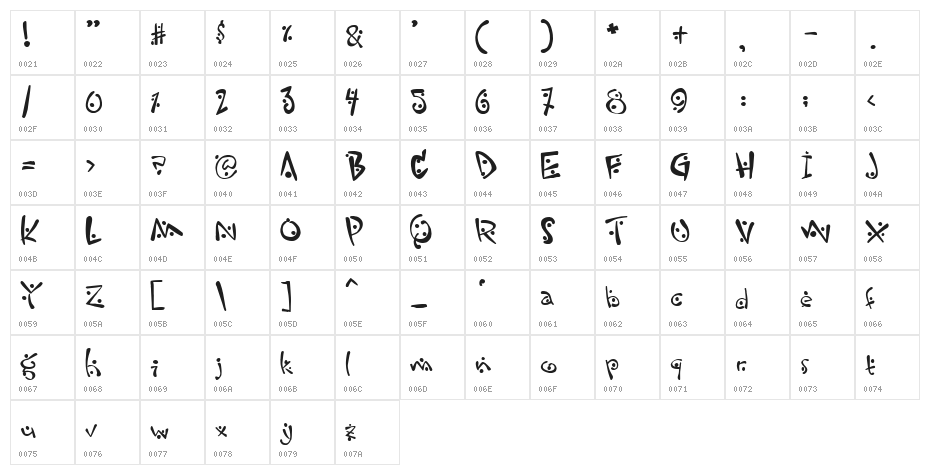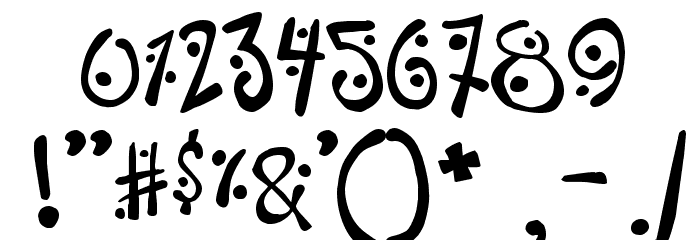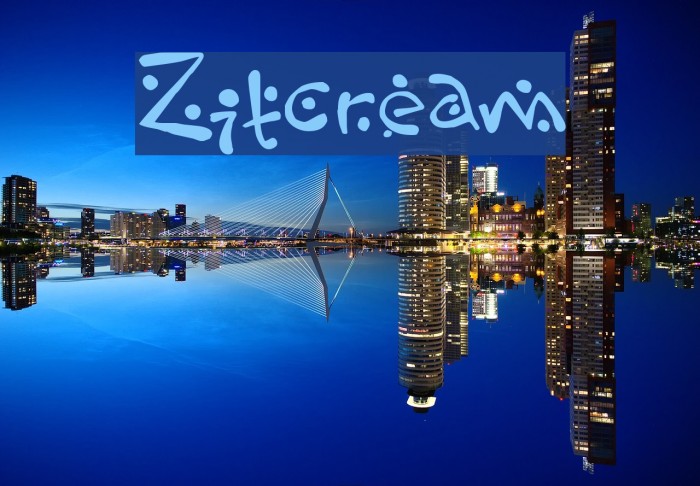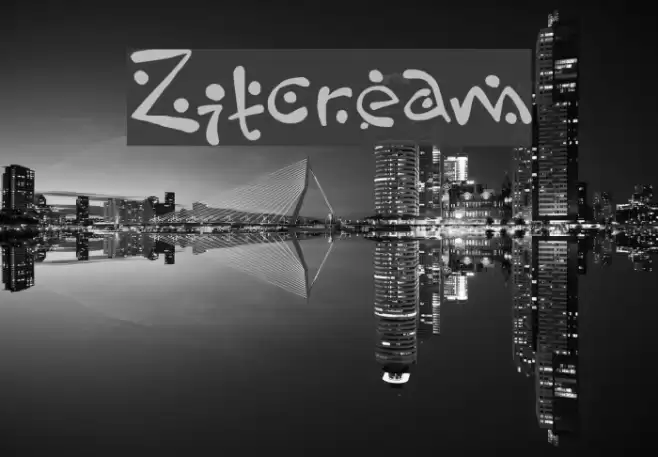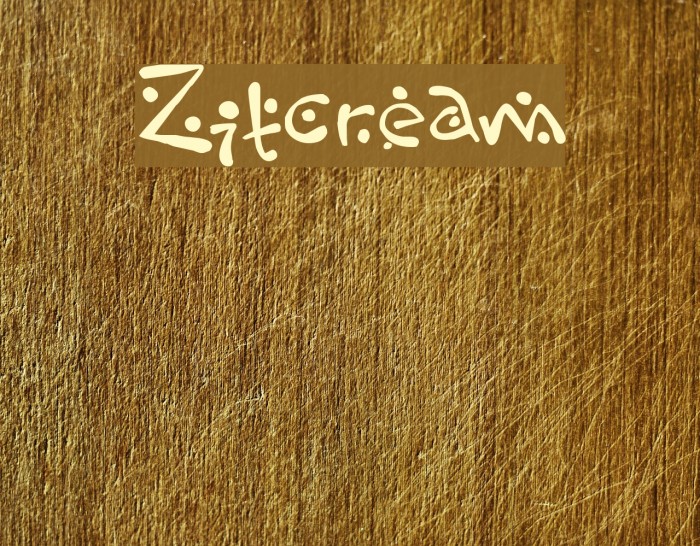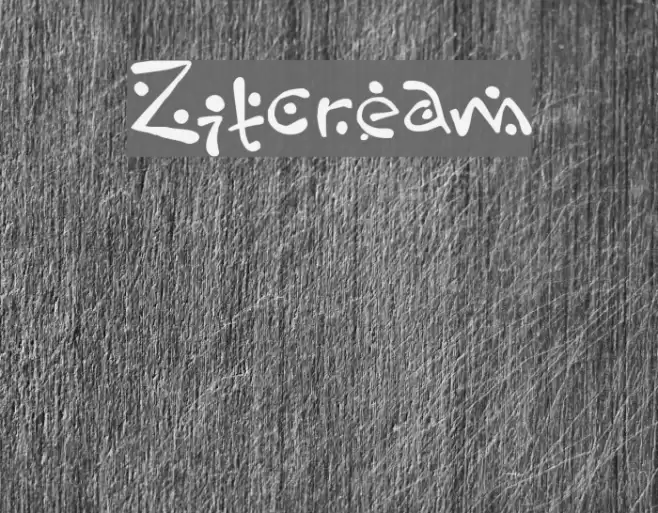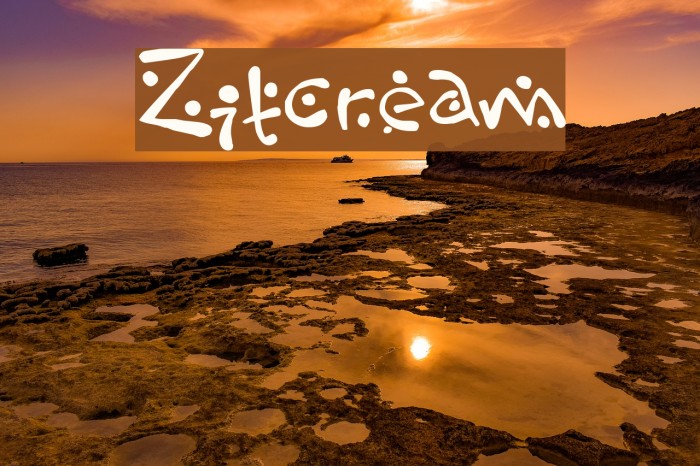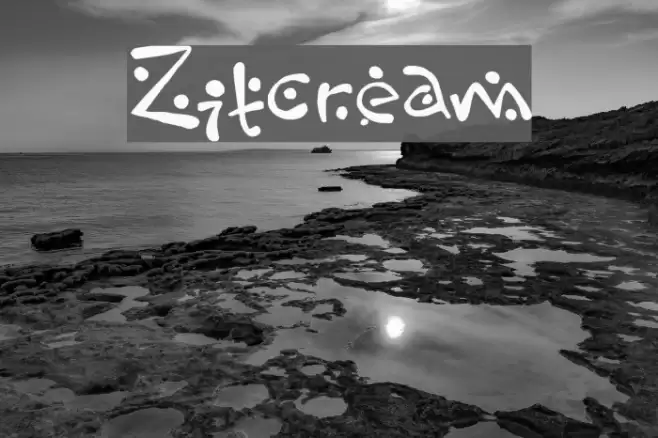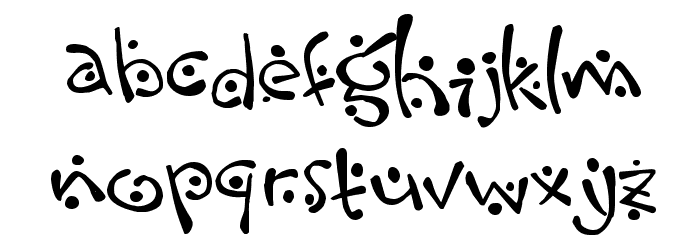
Zitcream Font
Zitcream Description
This playful and quirky font features a unique, whimsical design with irregular shapes and playful dots integrated into the characters. The letters have a hand-drawn appearance, with varying stroke thicknesses that add to its charm. The uppercase and lowercase letters maintain a consistent style, while the numbers and special characters complement the overall playful theme. This font's distinctive style makes it stand out, offering a fun and creative vibe.
| Overall Style | Playful, Whimsical |
| Proposed Projects | Ideal for children's books, playful branding, party invitations, and creative posters. |